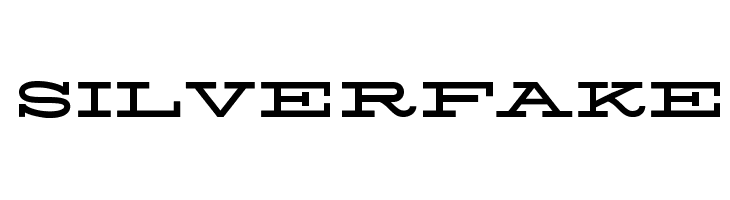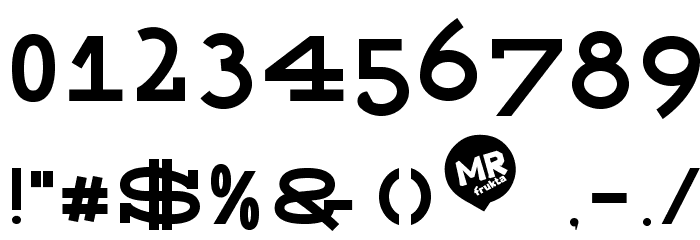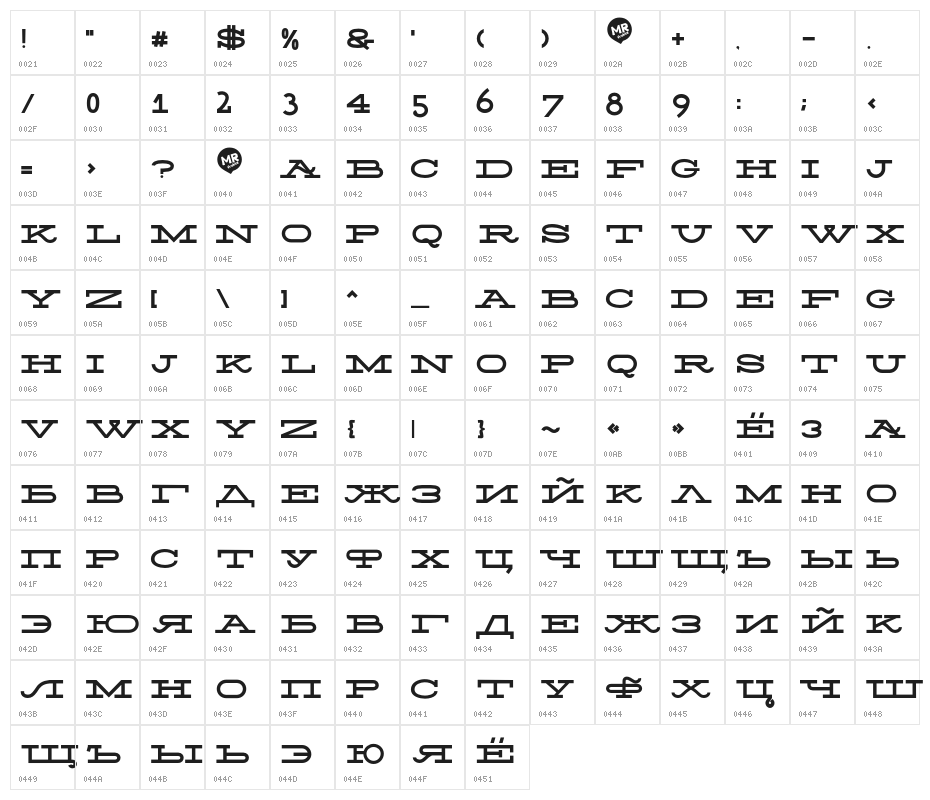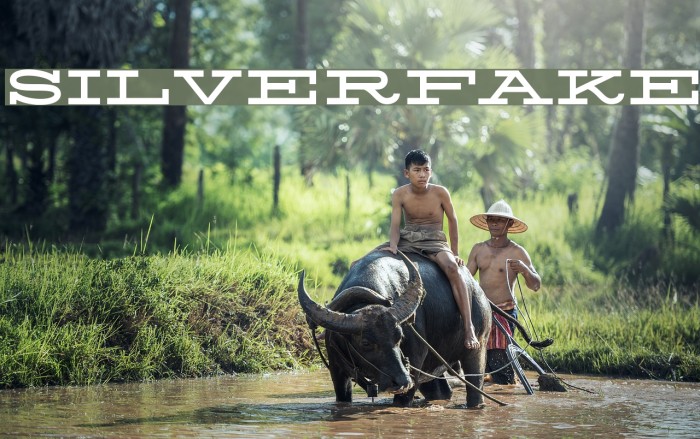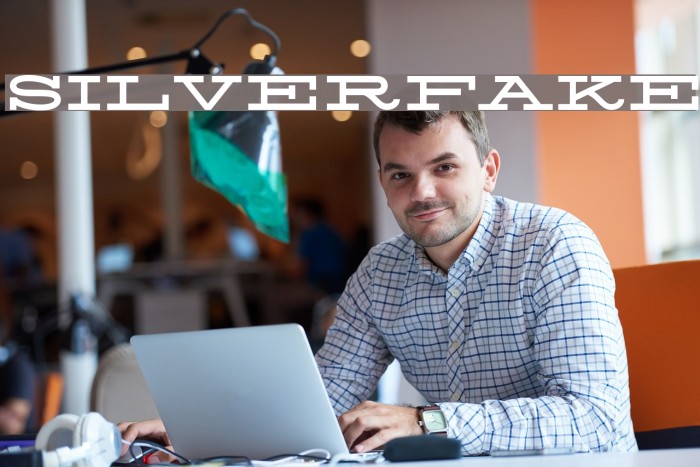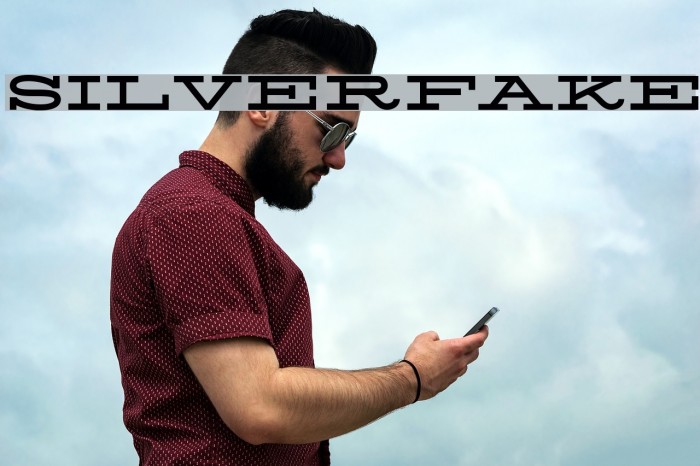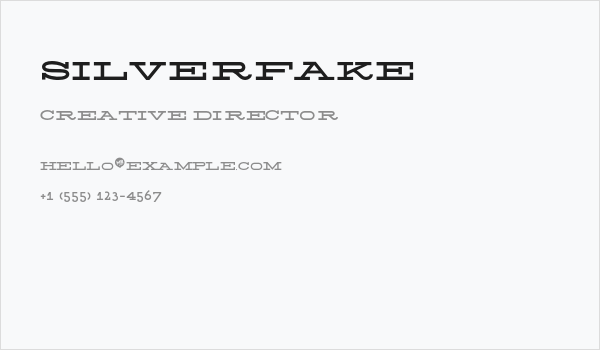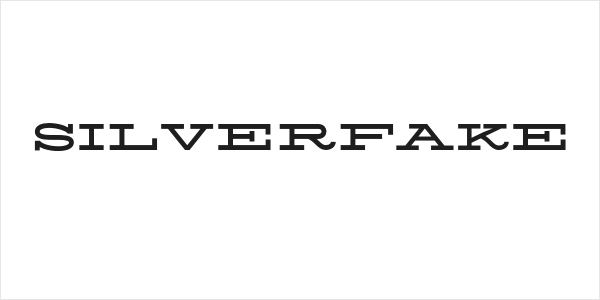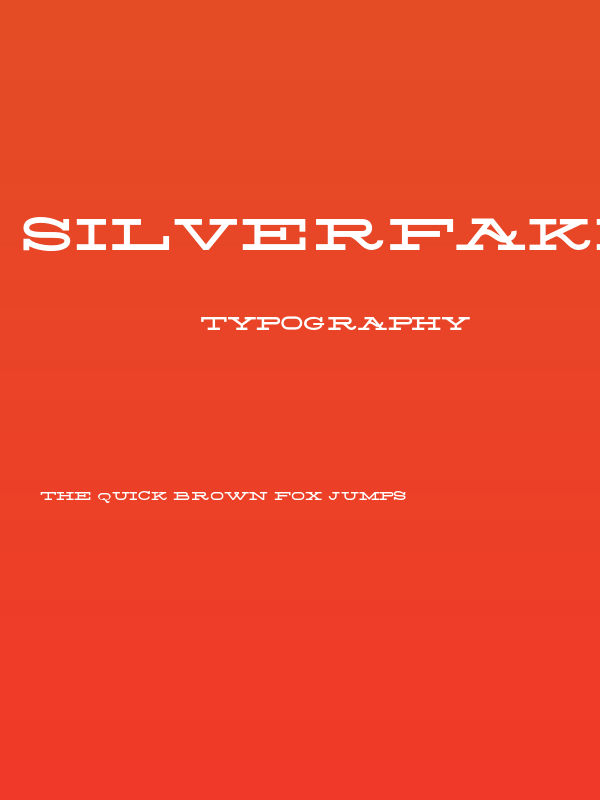
Silverfake Font
Silverfake Description
This font features a bold and striking design with a modern twist on classic serif elements. The uppercase letters are characterized by strong, angular serifs that give a sense of authority and presence. The lowercase letters maintain a consistent style, providing a cohesive look across the typeface. Numbers are equally bold, ensuring they stand out in any context. Special characters are designed with the same attention to detail, making them suitable for a variety of uses. The overall appearance is both stylish and functional, making it ideal for impactful headlines and branding.
| Proposed Projects | Ideal for branding, headlines, posters, and any project requiring a strong visual impact. |